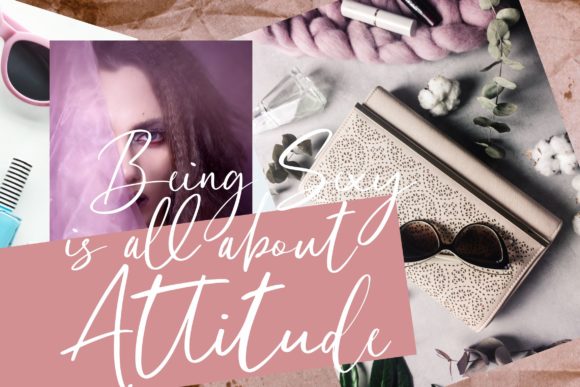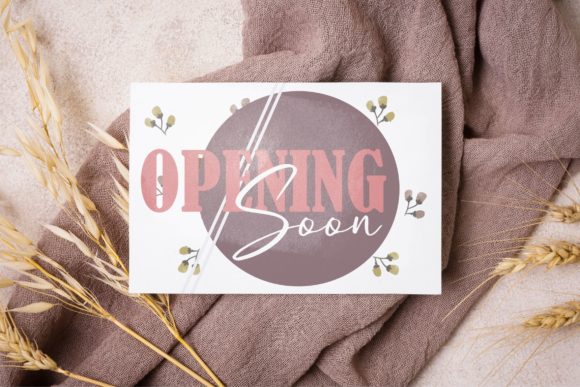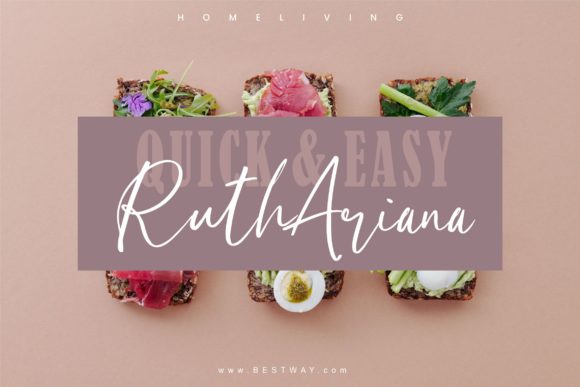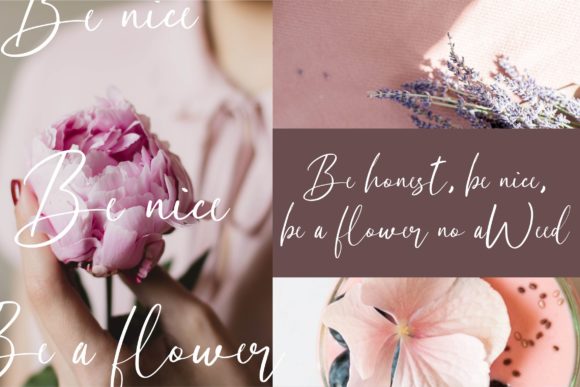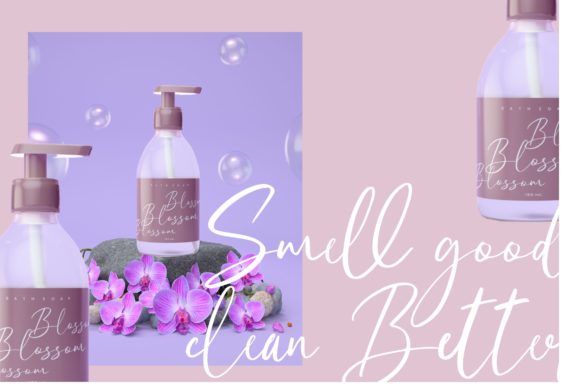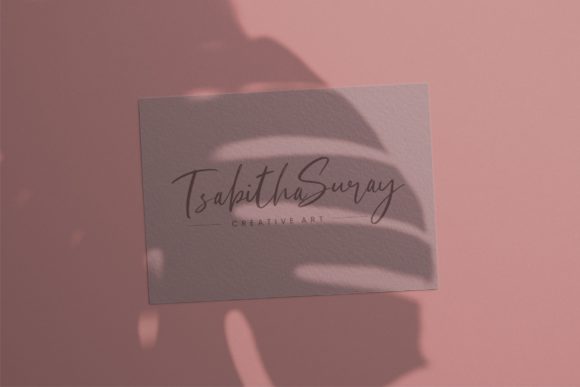
Unleashing Creativity with the Chabellita Font
As designers, we’ve all been there – staring at a blank canvas, trying to bring our vision to life. The perfect font can be the spark that ignites our creativity and sets our designs ablaze. For me, that spark came when I stumbled upon the Chabellita Font. Its elegant, handwritten style is nothing short of captivating, making it the perfect choice for a wide range of applications.
The Chabellita Font is a versatile and charming script font that can elevate any design project. Whether you’re creating a logo, wedding invitation, or t-shirt design, this font is sure to add a touch of sophistication and whimsy. Its value lies in its ability to convey emotion and personality, making it a valuable asset for designers who want to add a human touch to their work.
Key Features of Chabellita Font
- Font Family: Chabellita, Chabellita Italic, Chabellita Bold, Chabellita Bold Italic
- Unique Characteristics: Elegant, sophisticated, and luxurious script font with swashes and connecting strokes, ideal for formal invitations, wedding stationery, and luxury branding
- Font Style: Script, Display
Chabellita Font Review
Overall, I think Chabellita is a nice, modern script font that works well in certain contexts. ✨ Its flowing lines and rounded edges give it a friendly, approachable feel that’s perfect for branding or packaging designs.
- ✨ Versatile: Chabellita works well in both digital and print contexts, making it a great choice for multi-channel branding.
- ✨ Easy to read: Despite being a script font, Chabellita is surprisingly legible, even at smaller font sizes.
- ✨ Stylish: Chabellita’s unique design makes it a great choice for adding a touch of personality to your designs.
- ⚠️ Limited language support: Chabellita’s design is heavily influenced by the Latin alphabet, which may not be suitable for non-Latin languages.
- ⚠️ May not be suitable for formal contexts: While Chabellita is perfect for branding or packaging, it may not be the best choice for formal documents or presentations.
Overall, I think Chabellita is a solid choice for designers looking for a modern, approachable script font. Just be sure to consider its limitations before using it in your next project.
For a more polished look, pair Chabellita with a clean sans-serif font for body text.
Chabellita Font is perfect for:
– Creating elegant invitations and greeting cards.
– Designing modern and sophisticated business cards.
– Adding a touch of whimsy to children’s party invitations and decorations.
Alternative Fonts to Chabellita
Great Vibes is a modern script font ideal for use in creative projects, such as invitations, posters, and digital designs. It features a unique, flowing style that captures a carefree and optimistic atmosphere.
Compared to Chabellita, Great Vibes is more cursive and has a softer, more playful feel. It is suitable for projects where a friendly and approachable tone is desired.
Alex Brush is a elegant script font that works well in various contexts, including branding, advertising, and editorial design. It features a refined, sophisticated style with subtle flair and texture.
Unlike Chabellita, Alex Brush is more refined and has a more luxurious feel. It is ideal for projects where a high-end or premium tone is desired.
Carolyna Pro is a modern script font that combines a mix of elegance and playfulness. It features a flowing style with subtle flair and texture, making it suitable for use in various design projects.
Compared to Chabellita, Carolyna Pro is more versatile and has a more modern feel. It is ideal for projects where a dynamic and creative tone is desired.